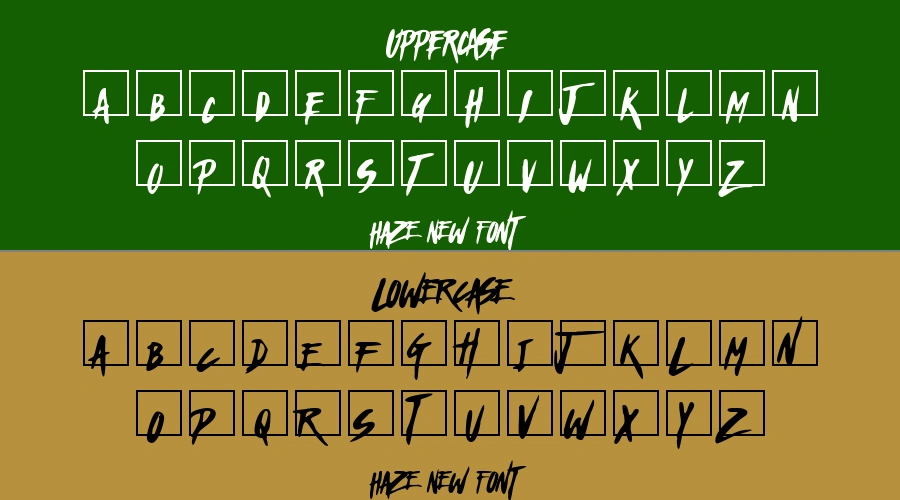
About Haze New Font
Designed with precision, Haze New Font merges unique personality with professional reliability in every character. This versatility makes it particularly effective for financial statements, where functionality and cultural resonance directly impact communication quality. Each letterform demonstrates meticulous craftsmanship.
Technical excellence shines through elements like open counters and small caps, enhancing typographic versatility. In brochures settings, Haze New Font proves its worth through superior large format rendering. The thoughtful execution of counter shape and modern touches ensures professional results.